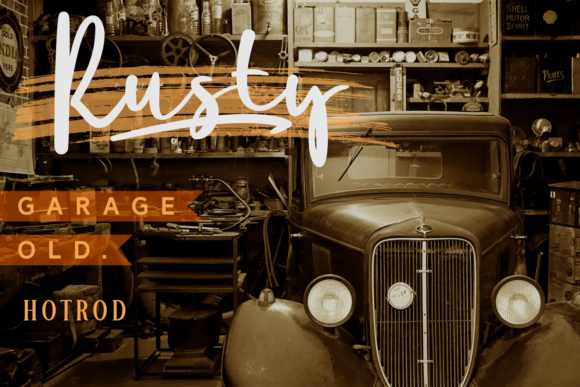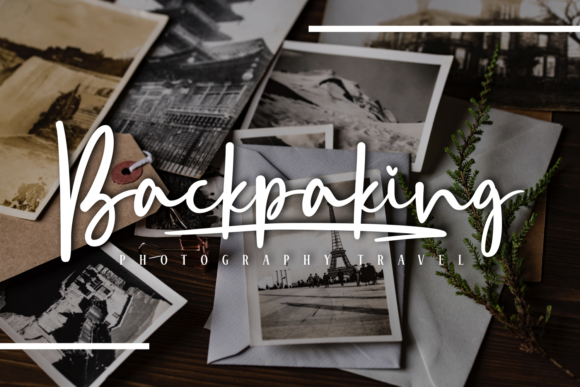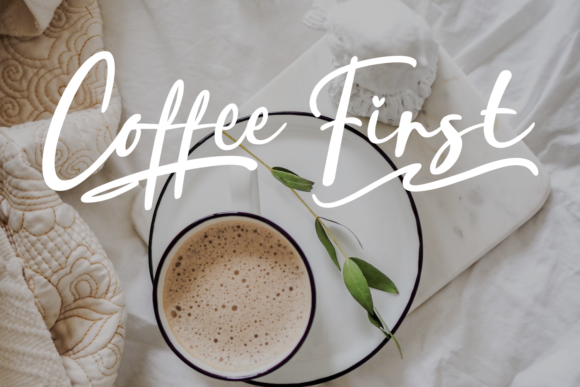
Introduction to Maghee Jolla Font
Have you ever been working on a creative project, pouring your heart and soul into every detail, only to feel like something is missing? That’s where the perfect font can make all the difference. For designers, finding the right typography can be a game-changer, and that’s exactly what the Maghee Jolla Font offers.
This beautiful script font is designed to add a touch of elegance and charm to any design project. With its light and casual feel, it’s perfect for creating a unique and memorable visual identity. And the best part? It’s available for free download, making it an accessible design resource for creatives of all levels.
Key Features of Maghee Jolla Font
- Unique, hand-drawn style with a transparent background, perfect for adding a personal touch to designs
Honest Review: Maghee Jolla Font
I recently came across the Maghee Jolla Font, and I must say it’s a great addition to any designer’s arsenal. As a creative professional, I’m always on the lookout for high-quality fonts that can elevate my projects.
The Maghee Jolla Font is available as a free download, which is a major plus in my book. It’s not often that you come across a font that’s both stylish and free. The font itself has a unique, modern aesthetic that works well for a variety of creative projects, from logos to typography-heavy designs.
- Unique, modern design that sets it apart from more generic fonts
- Transparent background, making it easy to use with any design element
- Only comes in a limited number of weights and styles
- Not ideal for use in very small font sizes
Overall, I’m impressed with the Maghee Jolla Font. It’s a solid choice for designers looking for a high-quality, modern font that’s easy to use and customize.
Tips for Getting the Most Out of the Maghee Jolla Font
To get the most out of the Maghee Jolla Font, use it in combination with a transparent background to create a clean and minimalist design. Experiment with different font sizes, styles, and colors to add visual interest to your creative project. You can also use the font in conjunction with other design elements, such as images and graphics, to create a cohesive and visually appealing composition.
Common Use Cases for the Maghee Jolla Font
The Maghee Jolla Font is a versatile design resource that can be used in a variety of creative projects, including blog posts, social media graphics, and presentations. Its high-quality design